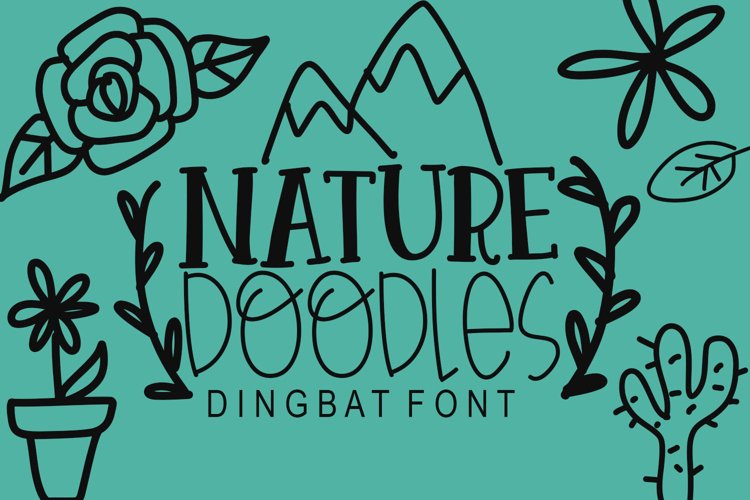
Nature Doodles Dingbat Font is a font of hand drawn doodles of flowers, trees, leaves and hearts. It is perfect for adding adorable flair and personality to any project.